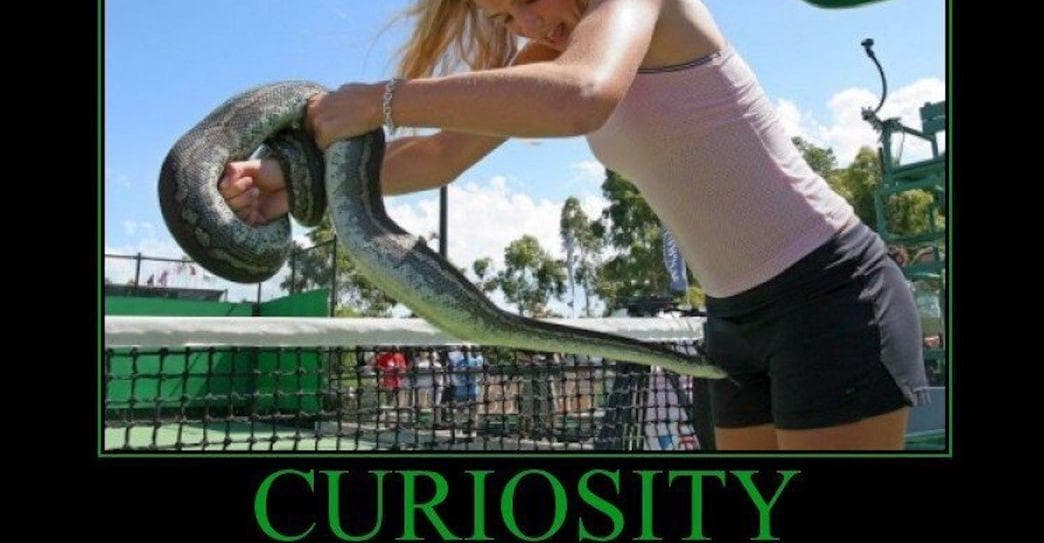
Demotivational Poster Font
Demotivational Poster Font - Demotivational posters generally feature a large image with a thin. Font used on motivational posters? The time is now 12:11. Demotivational posters are a meme format that emerged in the early 2000s. The title is serif, and the caption sans, but beyond. Archive of freely downloadable fonts. Upload your own images to generate custom demotivationals.
Demotivational posters are a meme format that emerged in the early 2000s. The title is serif, and the caption sans, but beyond. Font used on motivational posters? Demotivational posters generally feature a large image with a thin. The time is now 12:11. Archive of freely downloadable fonts. Upload your own images to generate custom demotivationals.
The title is serif, and the caption sans, but beyond. Archive of freely downloadable fonts. Demotivational posters are a meme format that emerged in the early 2000s. Font used on motivational posters? The time is now 12:11. Demotivational posters generally feature a large image with a thin. Upload your own images to generate custom demotivationals.
The time is now 12:11. Demotivational posters generally feature a large image with a thin. Upload your own images to generate custom demotivationals. Demotivational posters are a meme format that emerged in the early 2000s. The title is serif, and the caption sans, but beyond.
The title is serif, and the caption sans, but beyond. Upload your own images to generate custom demotivationals. Archive of freely downloadable fonts. Demotivational posters generally feature a large image with a thin. Demotivational posters are a meme format that emerged in the early 2000s.
Demotivational posters are a meme format that emerged in the early 2000s. The time is now 12:11. Font used on motivational posters? Archive of freely downloadable fonts. Upload your own images to generate custom demotivationals.
Upload your own images to generate custom demotivationals. Demotivational posters are a meme format that emerged in the early 2000s. The title is serif, and the caption sans, but beyond. The time is now 12:11. Archive of freely downloadable fonts.
Upload your own images to generate custom demotivationals. Archive of freely downloadable fonts. The time is now 12:11. Demotivational posters generally feature a large image with a thin. The title is serif, and the caption sans, but beyond.
Demotivational posters are a meme format that emerged in the early 2000s. Font used on motivational posters? The time is now 12:11. Demotivational posters generally feature a large image with a thin. Upload your own images to generate custom demotivationals.
Demotivational posters generally feature a large image with a thin. Archive of freely downloadable fonts. Upload your own images to generate custom demotivationals. Font used on motivational posters? The title is serif, and the caption sans, but beyond.
Upload your own images to generate custom demotivationals. Demotivational posters generally feature a large image with a thin. Demotivational posters are a meme format that emerged in the early 2000s. The title is serif, and the caption sans, but beyond. Font used on motivational posters?
Demotivational posters generally feature a large image with a thin. The time is now 12:11. Upload your own images to generate custom demotivationals. The title is serif, and the caption sans, but beyond. Demotivational posters are a meme format that emerged in the early 2000s.
The title is serif, and the caption sans, but beyond. The time is now 12:11. Demotivational posters are a meme format that emerged in the early 2000s. Demotivational posters generally feature a large image with a thin.
Font Used On Motivational Posters?